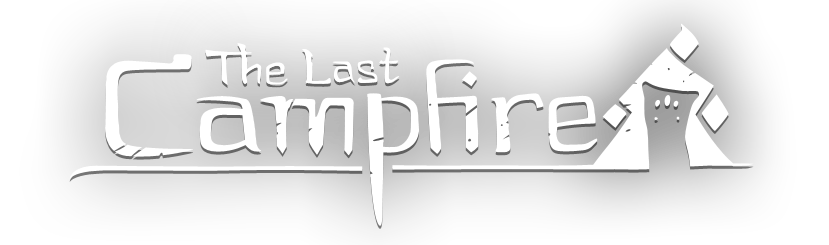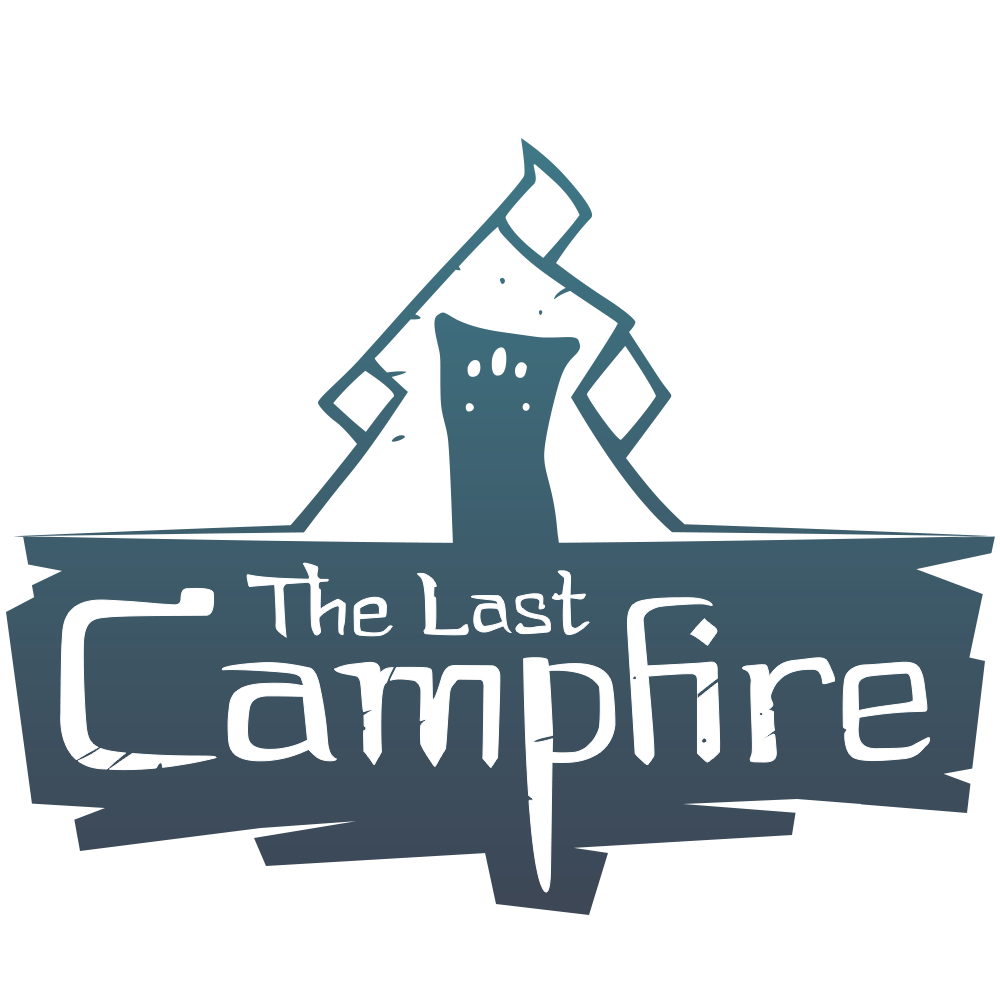
Looking for a font that most closely matches the style in the logo for The Last Campfire (video game).
As the title suggests, I'm hoping to find fonts that most closely mimic the style in this logo. I know the logo itself is original, but I want to find the closest approximations.
I'm looking for both letters and numbers. If I have to use 2 different fonts (one for each), that's ok, as long as they look reasonably close to each other.
Nothing even close, but Babylon 5 is the closest free font I can find. It's like a straightened version of the font... sort of, if you squint.
That is honestly a lot closer than anything I had found so far! I'll keep the topic open a little longer in keep someone finds something random that's better. But that's pretty good!